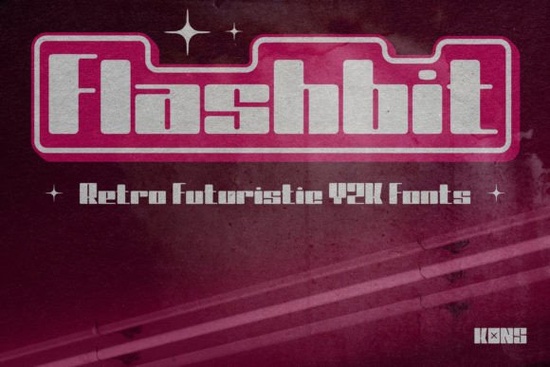
What exactly is the Flashbit Font style?
Flashbit draws heavily from the visual language of 2000s digital interfaces, tech startups, and early gaming consoles. Its letterforms mix rigid, techy segments with rounded terminals, giving you that clean-but-playful look you’d see on old DVD menus, sci-fi channel branding, or cybercafe flyers. The result is a retro-futurism display font that feels both nostalgic and crisp on modern screens.A few practical characteristics designers appreciate:
- Geometric construction with occasional pixelated quirks
- High x-height for strong readability at display sizes
- Alternate glyphs that let you dial the tech vibe up or down
- Works well in all caps and mixed case settings
How can print-on-demand sellers use Flashbit Font effectively?
Stick to larger font sizes. This isn’t a text face it’s a display font built for headlines, quotes, or focal points. On a mug or phone case, a short phrase set in Flashbit immediately gives your design a cohesive retro-futuristic aesthetic. Pair it with a simple sans serif for supporting text so the main message stays readable. Also, test how thin strokes hold up at smaller embroidery sizes; for DTG printing, it usually performs well because of the consistent stroke weight.
If you want to soften the techy edge for certain products, use the alternate glyphs (if included) to swap out a few letters for rounder versions. This small tweak can make the design feel more friendly without breaking the era theme.
Which fonts pair well with Flashbit for a cohesive retro-futuristic look?
Contrast is key. Since Flashbit is structured and digital, a more organic serif or a distressed typeface can balance the overall layout. For example, a grunge serif like Black Flag introduces a worn texture that contrasts nicely with Flashbit’s clean lines, creating a rave flyer or band poster aesthetic. You can find Black Flag Font in the display category as well.
For a smoother serif companion, Monsante offers elegant letterforms that ground Flashbit’s futuristic energy in a more editorial feel ideal for magazine-style layouts or sophisticated branding. You’ll also find Monsante Font available for similar commercial projects. And if your design leans toward darker, horror-themed Y2K graphics, Night Mare provides a creepy display style that still connects to that early-2000s gaming and Halloween aesthetic. Look up Night Mare Font when you need something grittier.
What should I check before buying a Y2K display font?
When you test a font like Flashbit, open the glyph panel and see if it includes alternates, multi-language support, and punctuation you’ll actually use. Also, type out your specific brand name or slogan some futuristic fonts make certain letter pairs awkward. Finally, consider the emotional tone: Flashbit leans playful and optimistic, which fits lifestyle products and pop culture references better than a corporate annual report.
Quick tips for getting the most from Flashbit Font
- Use it in white or neon green on dark backgrounds for instant Y2K credibility.
- Add a subtle outer glow or chromatic aberration effect in Photoshop to mimic early-2000s screen graphics.
- For a less predictable look, mix uppercase and lowercase or enable stylistic alternates.
- Always test the font at the exact size your product requires before finalizing.